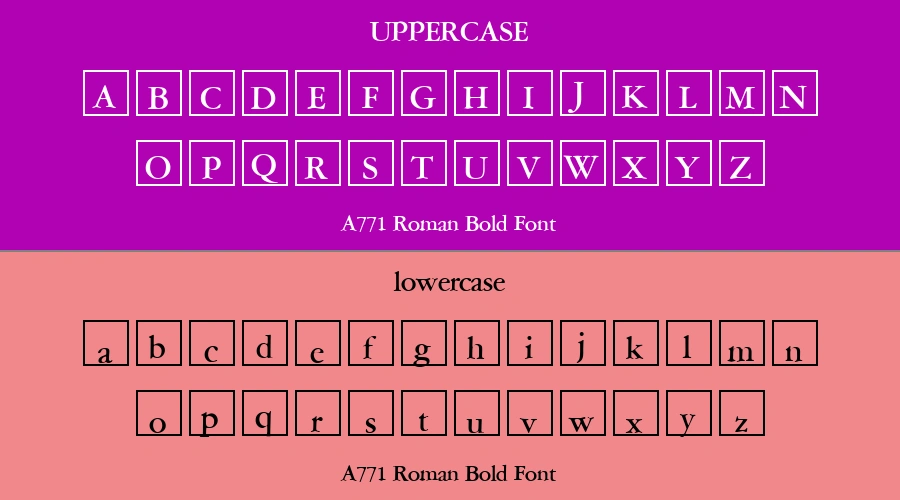
About A771 Roman Bold Font
Designed with precision, A771 Roman Bold Font merges commanding presence with technical precision in every character. This versatility makes it particularly effective for engineering drawings, where endurance and visual appeal directly impact communication quality. Each letterform demonstrates meticulous craftsmanship.
Technical excellence shines through elements like calculated proportions and proportional figures, enhancing typographic versatility. In packaging settings, A771 Roman Bold Font proves its worth through superior OCR compatibility. The thoughtful execution of x-height and brand personality ensures professional results.